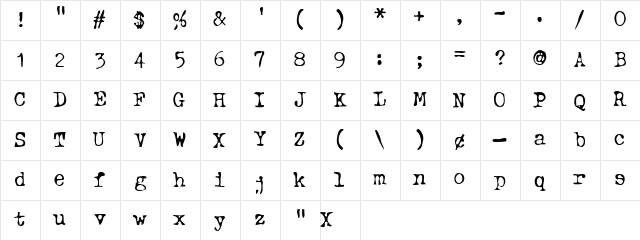
Typewriter Oldstyle
| Style | Oldstyle |
Design Context for Typewriter Typeface
Typewriter brings the precise, column-aligned rhythm of monospaced typography to designs that value technical clarity and systematic order.